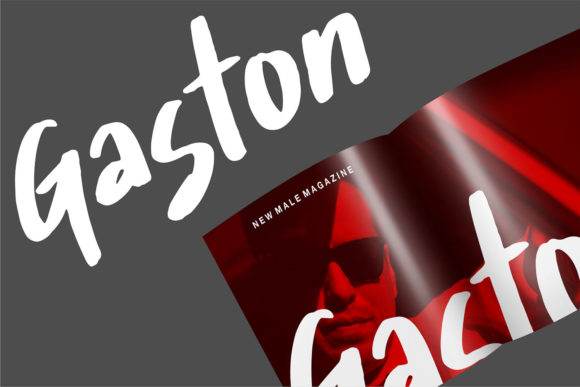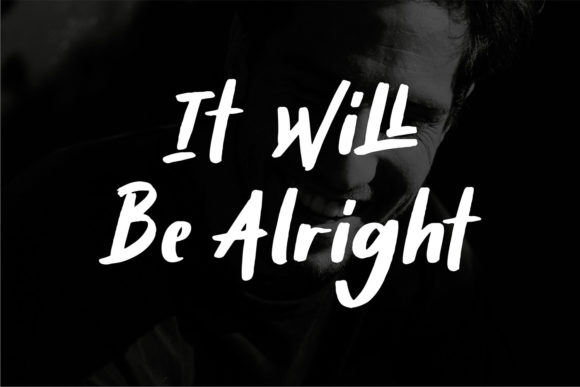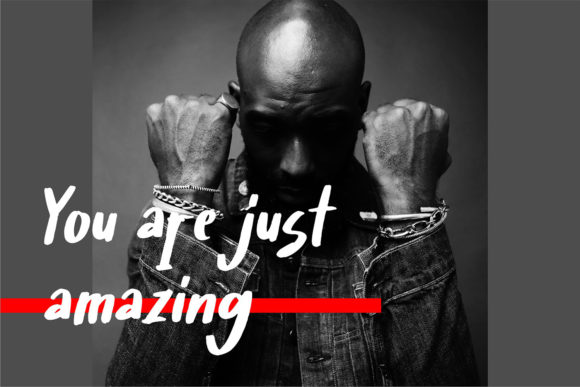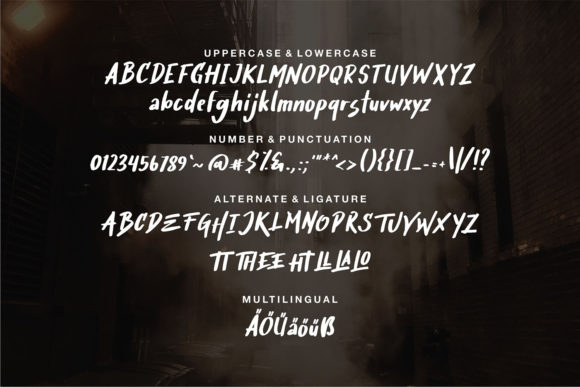
Introducing Bagille Font: The Ultimate Display Font for Creative Designs
Are you a designer or crafter looking for a font that can elevate your creative projects to the next level? Look no further than Bagille Font, a beautiful and masculine display font that is perfect for a wide range of applications. From greeting and thank you cards to branding materials, business cards, quotes, posters, and more, Bagille Font is the ultimate addition to your design toolkit.
What Makes Bagille Font So Special?
Bagille Font is a stunning example of a well-crafted display font. Its unique blend of elegance and masculinity makes it perfect for designers who want to add a touch of sophistication to their work. The font’s clean lines, precise curves, and carefully crafted lettering make it a joy to use, and its versatility ensures that it can be applied to a wide range of creative projects.
One of the things that sets Bagille Font apart from other display fonts is its incredible versatility. Whether you’re working on a greeting card, a branding campaign, or a poster, Bagille Font is the perfect choice. Its bold, eye-catching design ensures that your message will be seen and remembered, and its masculine charm adds a touch of elegance to any design.
Greeting and Thank You Cards
Bagille Font is the perfect choice for greeting and thank you cards. Its elegant design and masculine charm make it ideal for a wide range of occasions, from birthdays and weddings to holidays and special events. With Bagille Font, you can create beautiful, professional-looking cards that will make a lasting impression on your friends and loved ones.
Branding Materials and Business Cards
Bagille Font is also an excellent choice for branding materials and business cards. Its bold, eye-catching design ensures that your brand will stand out from the crowd, and its masculine charm adds a touch of sophistication to any design. Whether you’re looking to create a logo, a brochure, or a business card, Bagille Font is the perfect choice.
Quotes and Posters
Bagille Font is also perfect for quotes and posters. Its clean lines and precise curves make it easy to read, even at large sizes, and its bold design ensures that your message will be seen and remembered. Whether you’re creating a motivational poster, a quote for social media, or a billboard advertisement, Bagille Font is the perfect choice.
Why Choose Bagille Font?
So why choose Bagille Font over other display fonts? Here are just a few reasons:
- Unique Design: Bagille Font has a unique and elegant design that sets it apart from other display fonts.
- Versatility: Bagille Font is incredibly versatile, making it perfect for a wide range of design applications.
- Ease of Use: Bagille Font is easy to use and can be easily integrated into your design workflow.
- Masculine Charm: Bagille Font has a masculine charm that adds a touch of sophistication to any design.
In conclusion, Bagille Font is a beautiful and masculine display font that is perfect for designers and crafters who want to add a touch of elegance and sophistication to their creative projects. Its unique design, versatility, and ease of use make it an excellent choice for a wide range of design applications, from greeting and thank you cards to branding materials, business cards, quotes, posters, and more. So why wait? Download Bagille Font today and start creating stunning designs that will leave a lasting impression!